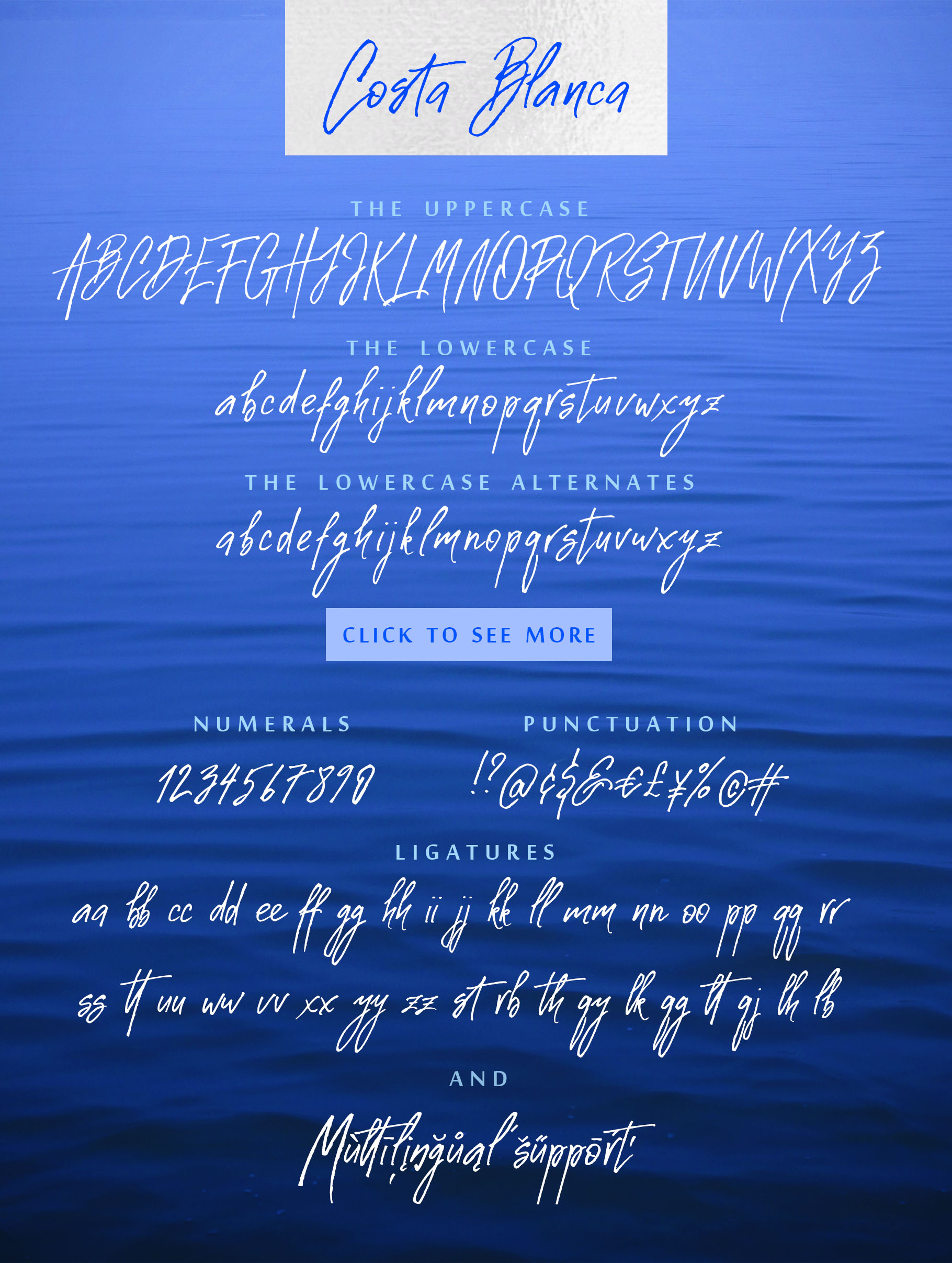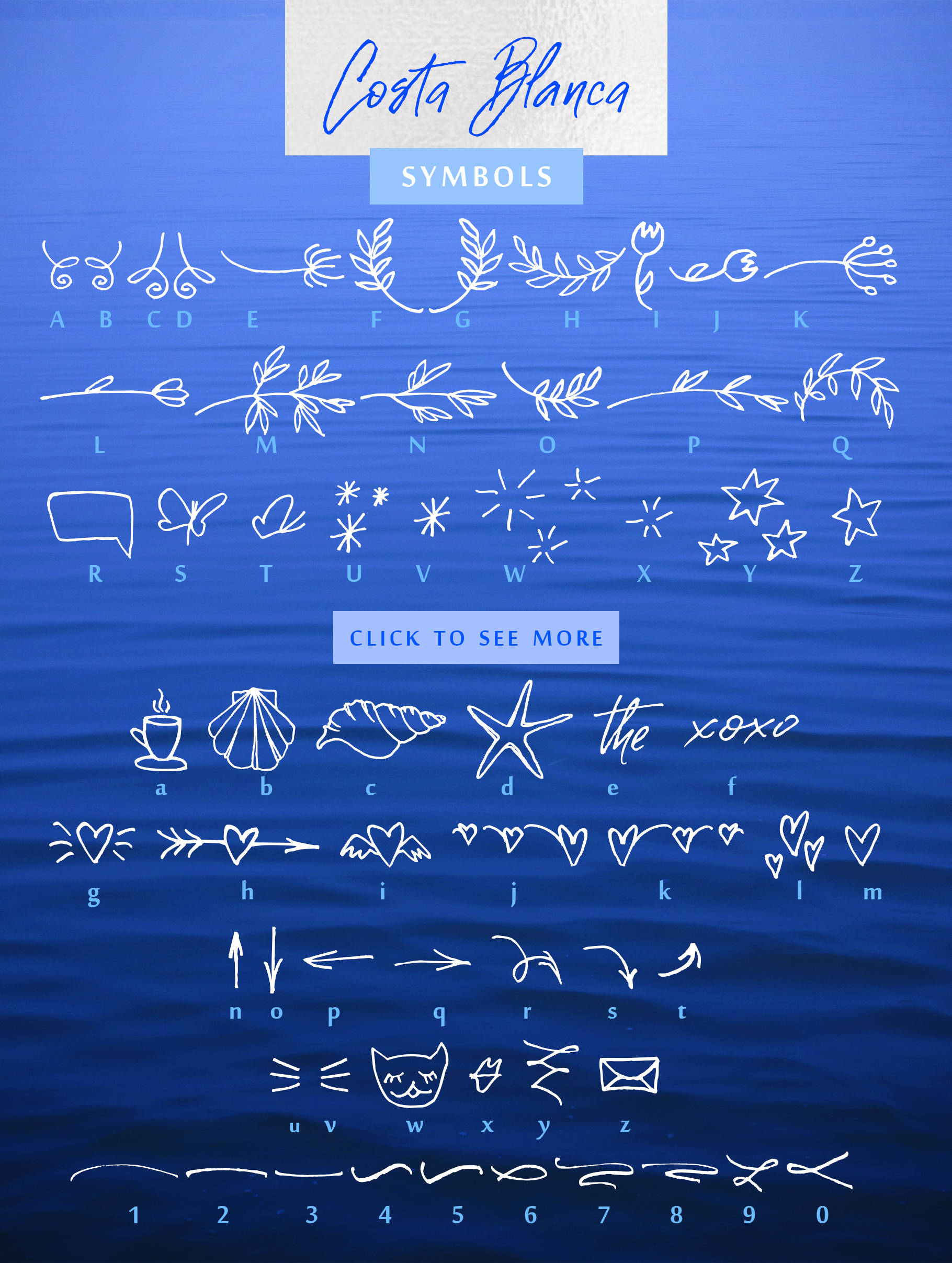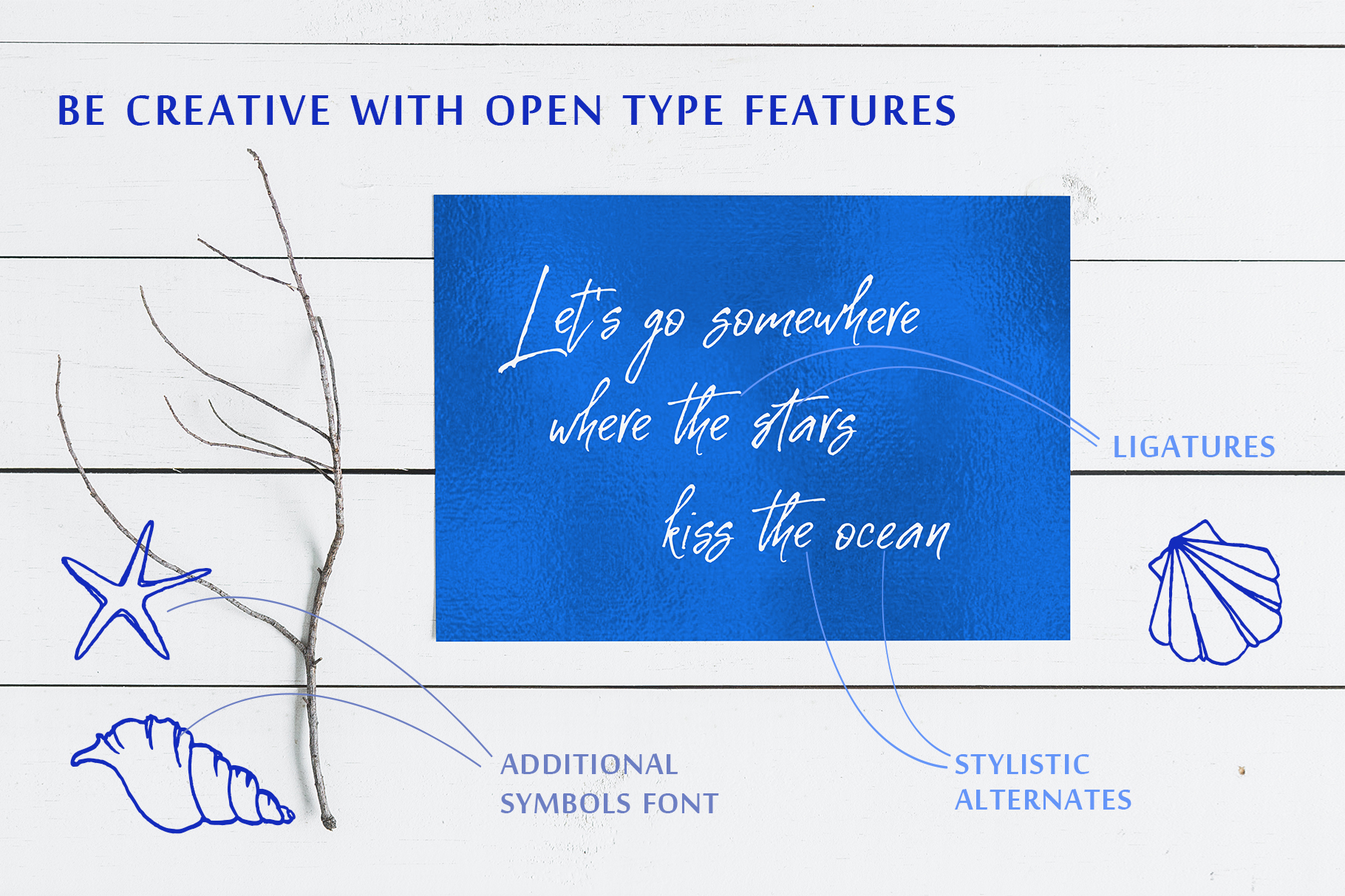
Introduction to Costa Blanca Font
β€œEverybody has their own handwriting.
And I have too My new font based on it.
Key Features of Costa Blanca Font
Why Choose Costa Blanca Font?